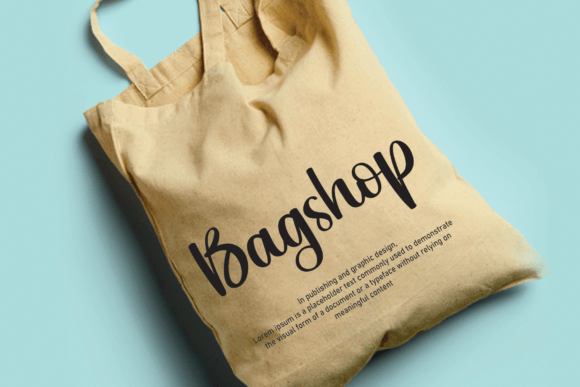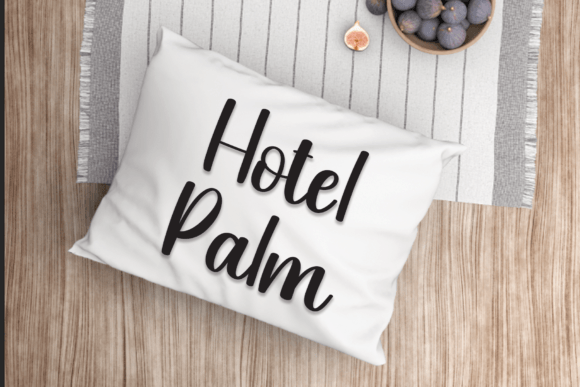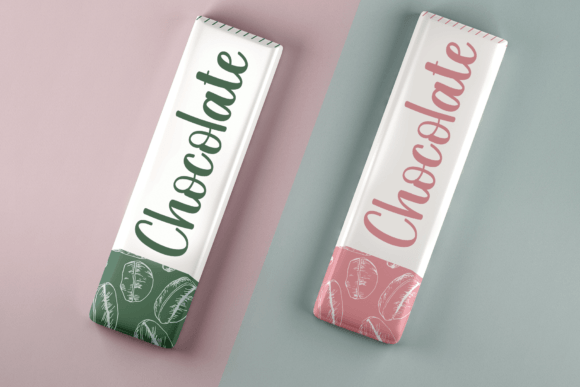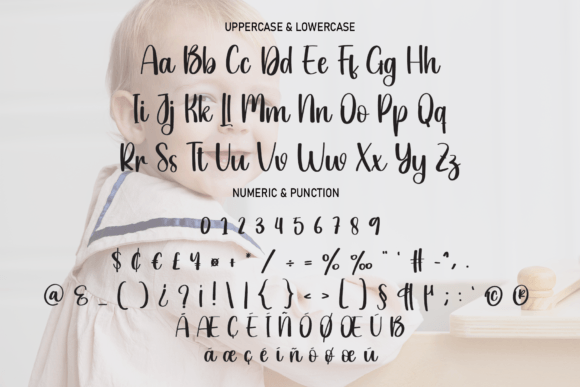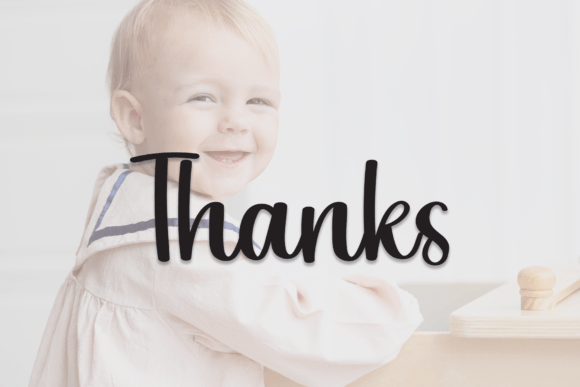
About Laugh Font
Laugh Font is a flowing handwritten script that combines elegance with a timeless design. Its graceful lines and stylish curves make it a versatile font for a wide range of projects. Because of its sophisticated yet approachable appearance, Laugh Font is ideal for invitations, logos, stationery, and creative digital work.
A Flowing Handwritten Typeface
Handwritten fonts naturally bring warmth and character, and Laugh Font emphasizes these qualities with an elegant touch. Its smooth strokes provide a natural rhythm, while its balanced structure ensures readability across sizes. Moreover, this typeface adapts beautifully to both casual and formal layouts, making it a reliable resource for designers.
Perfect Typeface for Invitations and Cards
When creating wedding invitations, greeting cards, or thank-you notes, Laugh Font delivers style and charm. For example, it can transform a simple invitation into a keepsake that feels timeless. In addition, it works wonderfully for birthday cards, seasonal stationery, and event designs. Because of its elegant strokes, every message feels heartfelt and unique.
A Script Typeface for Logos and Branding
Brands and businesses can rely on LaughFont to build a polished and approachable identity. Logos, packaging, and product labels look professional yet creative with its flowing style. Furthermore, on social media, it helps posts, banners, and promotional graphics stand out with sophistication. Paired with modern sans serif fonts, Laugh Font creates balance between elegance and clarity.
Another strength of LaughFont is its versatility across mediums. In print, it enhances posters, brochures, magazines, and merchandise. Digitally, it elevates websites, blogs, and presentations. Since it scales well, it remains effective in both large headlines and small captions. As a result, this handwritten script is a dependable option for a variety of creative projects.